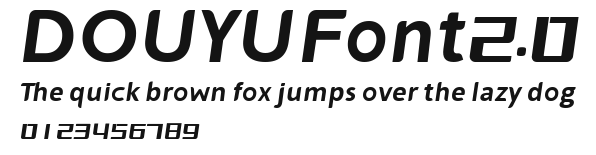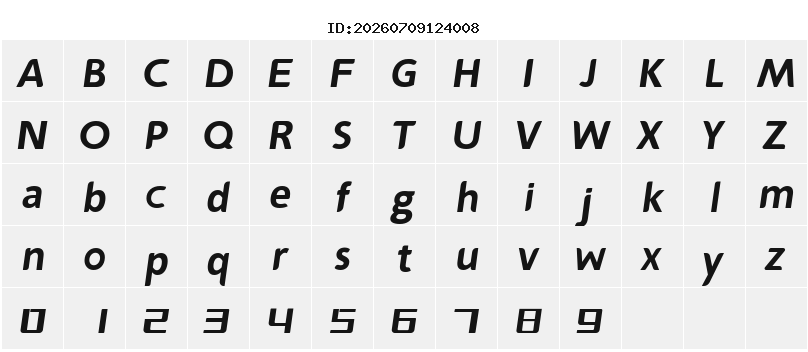
DOUYUFont2.0 Preview
• Font Name: DOUYUFont2.0
• Designer: DOUYU
• Manufacturer: DOUYUFont
• Description: DOUYUFont
About DOUYUFont2.0.ttf
DOUYUFont2.0.ttf is a modern, elegant sans-serif font designed for ultimate readability and visual harmony. Perfect for branding, headlines, web design, and print materials.